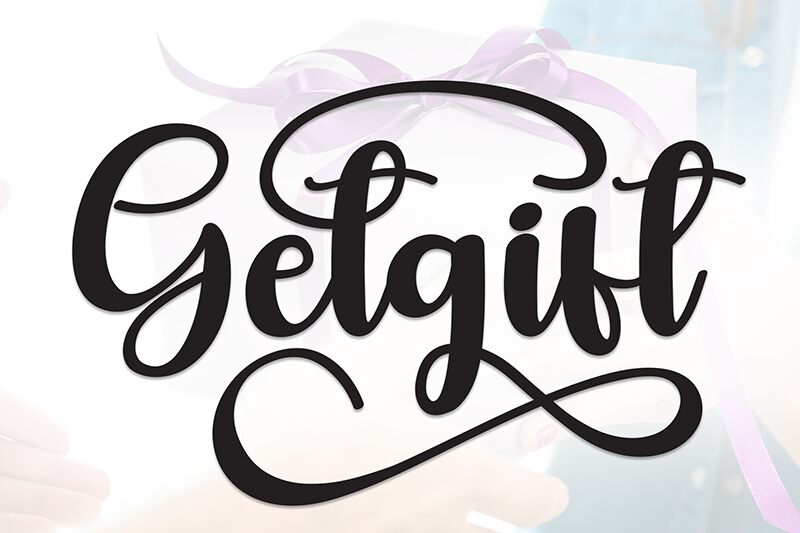
Getgift
Getgift font, designed by Andi Moz, is a brush script typeface that is as expressive as it is elegant. Its handwritten style combines casual elegance with flowing curves and an energetic feel. The strong visual presence of this free calligraphy font captures attention and suits well for projects that seek to impress.
Potential uses for Getgift include tattoo design, invitations, posters, packaging design, logos signs, apparel designs like T-shirts or hoodies; it also fits perfectly into digital presentations including branding online platforms such as websites/apps social media pages and more!